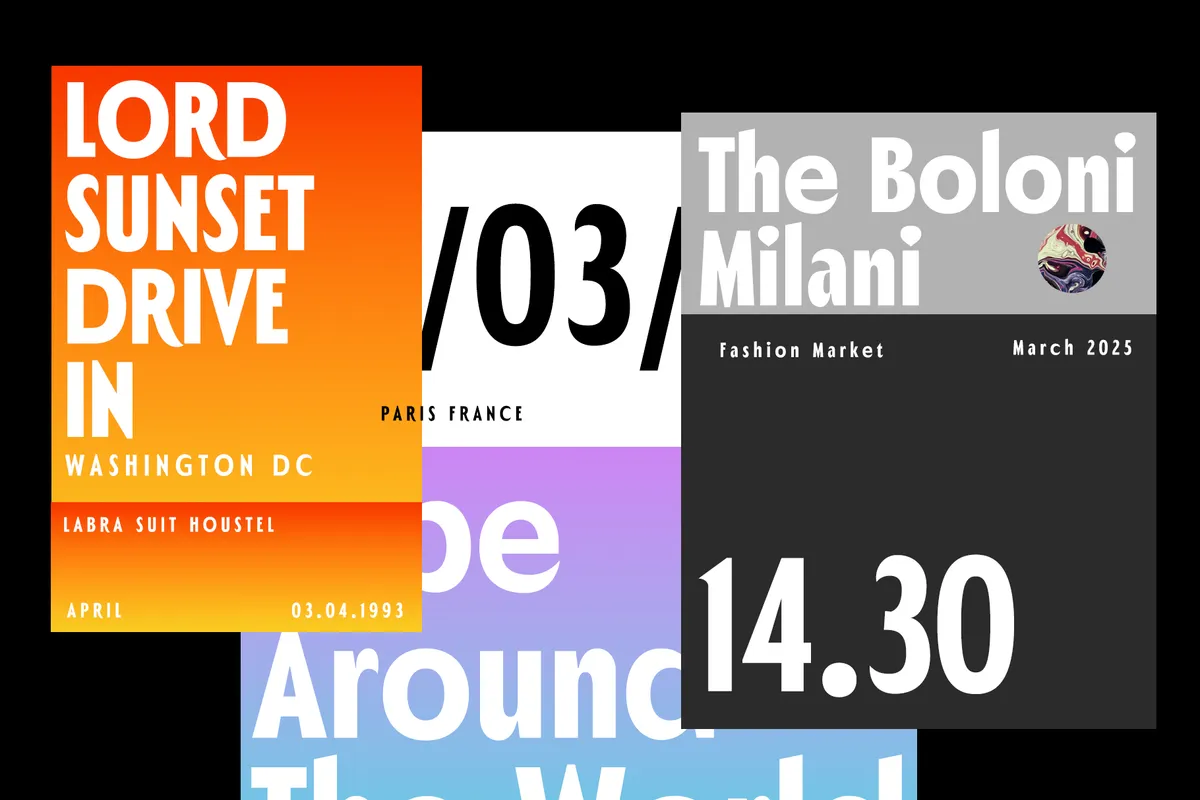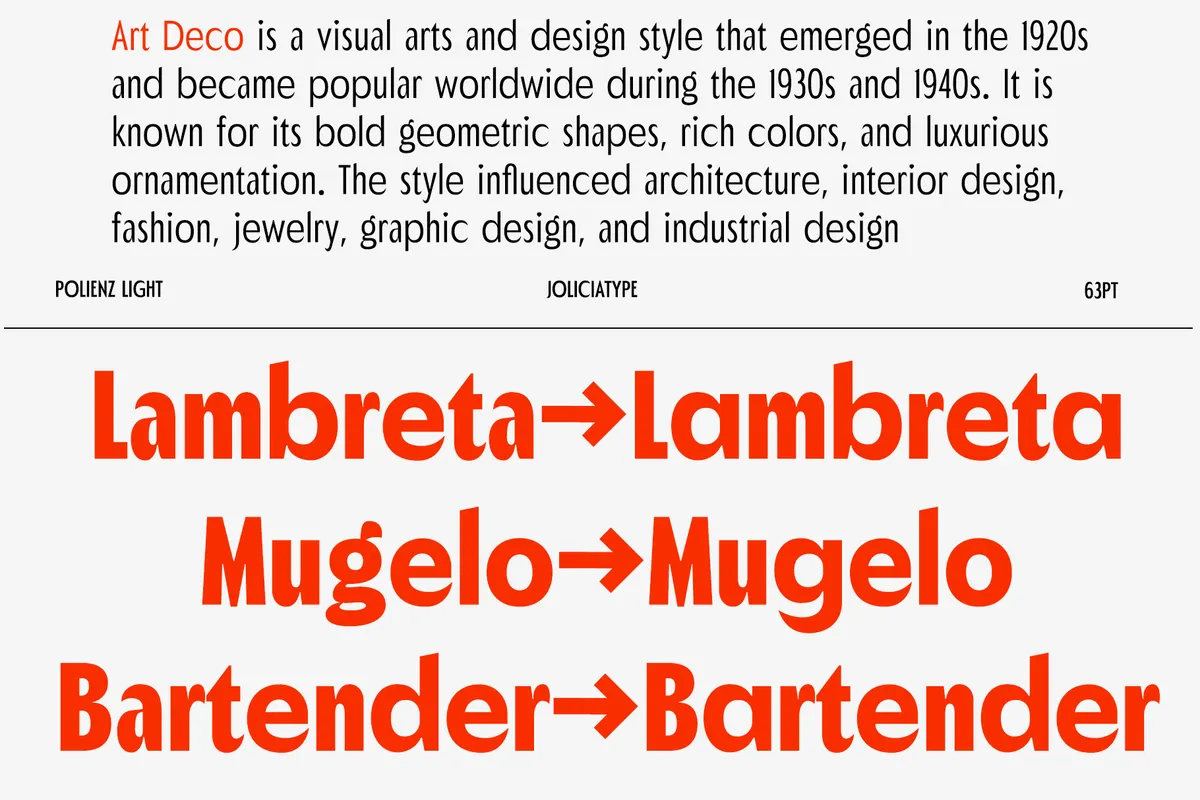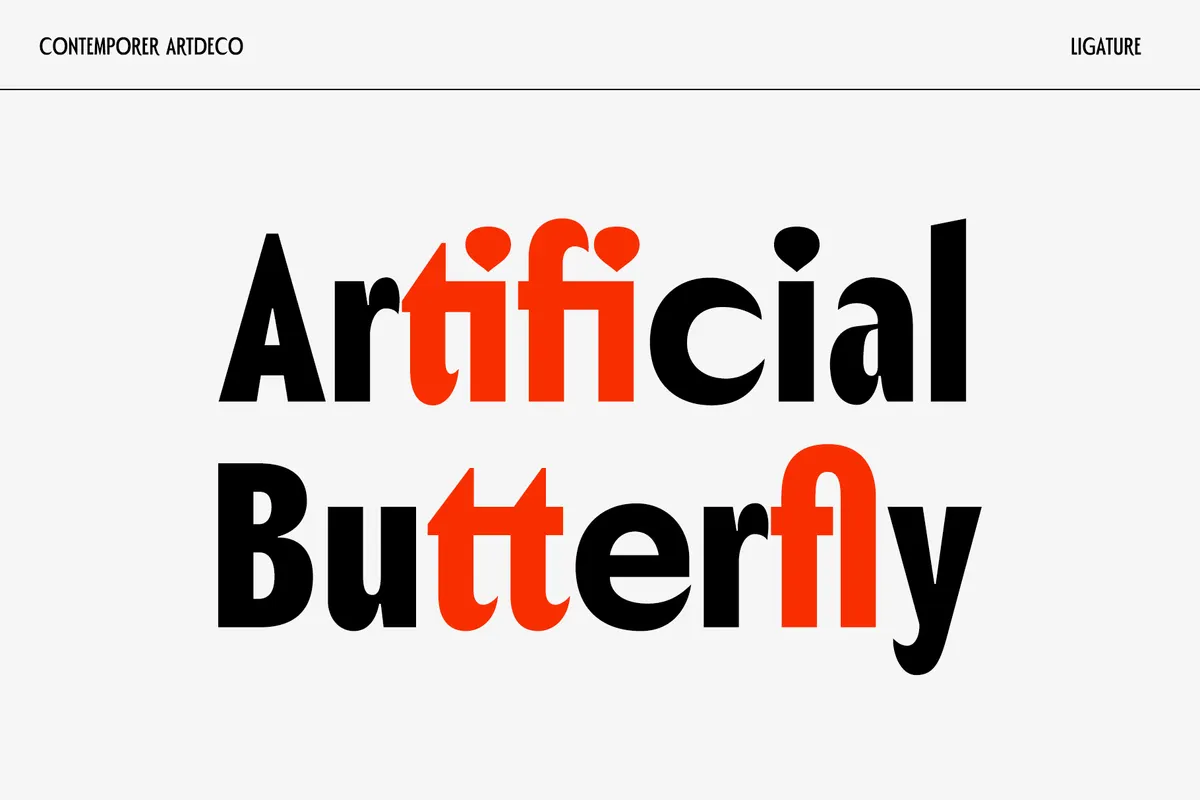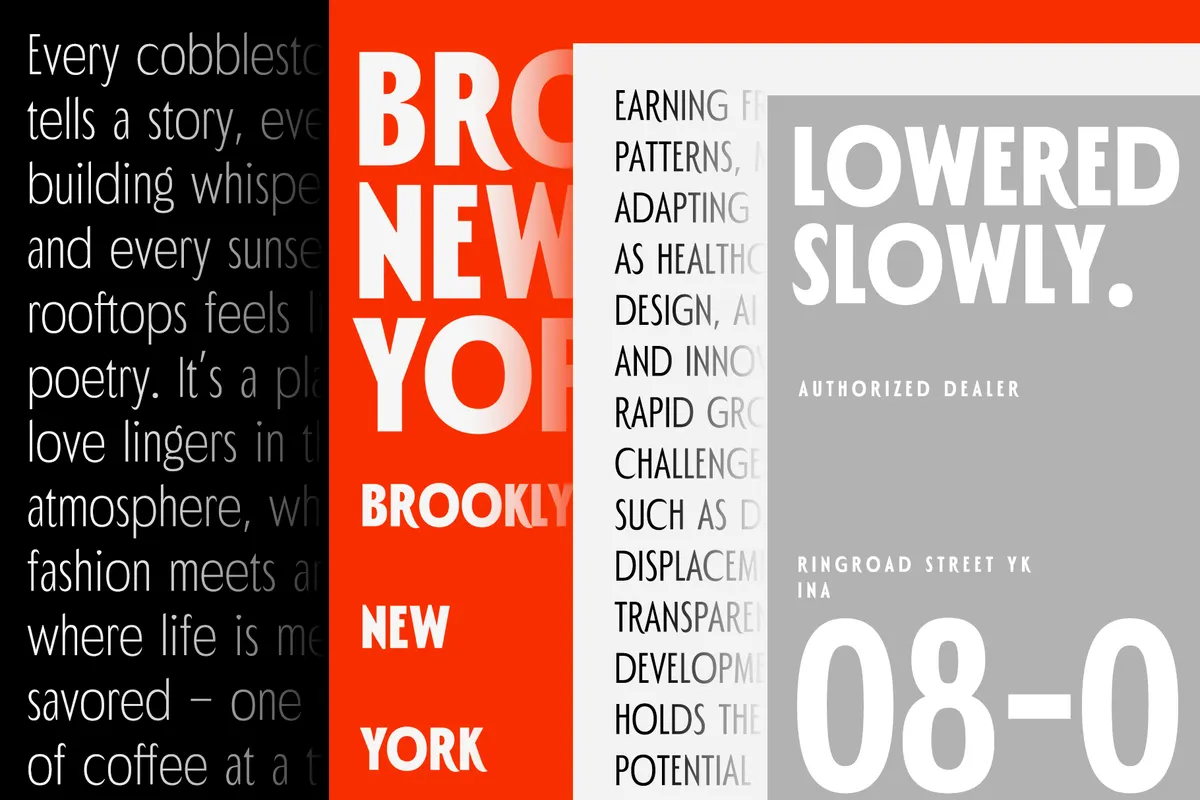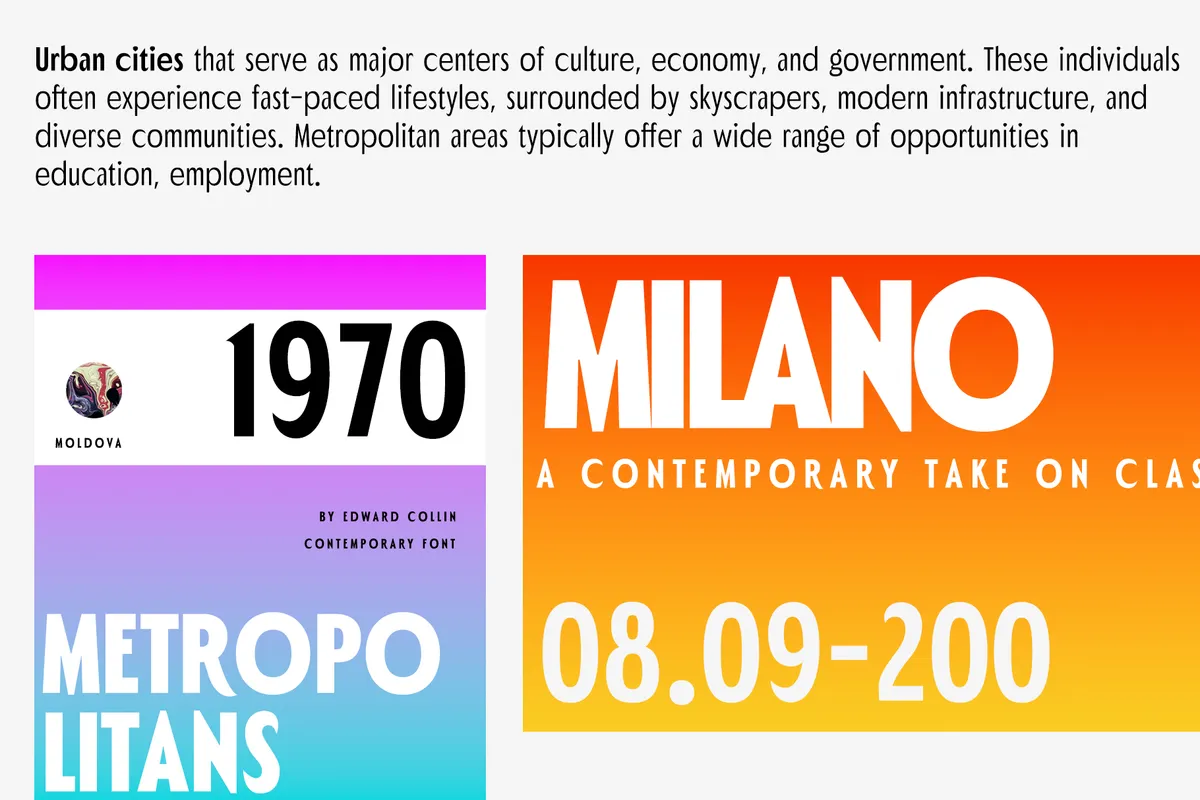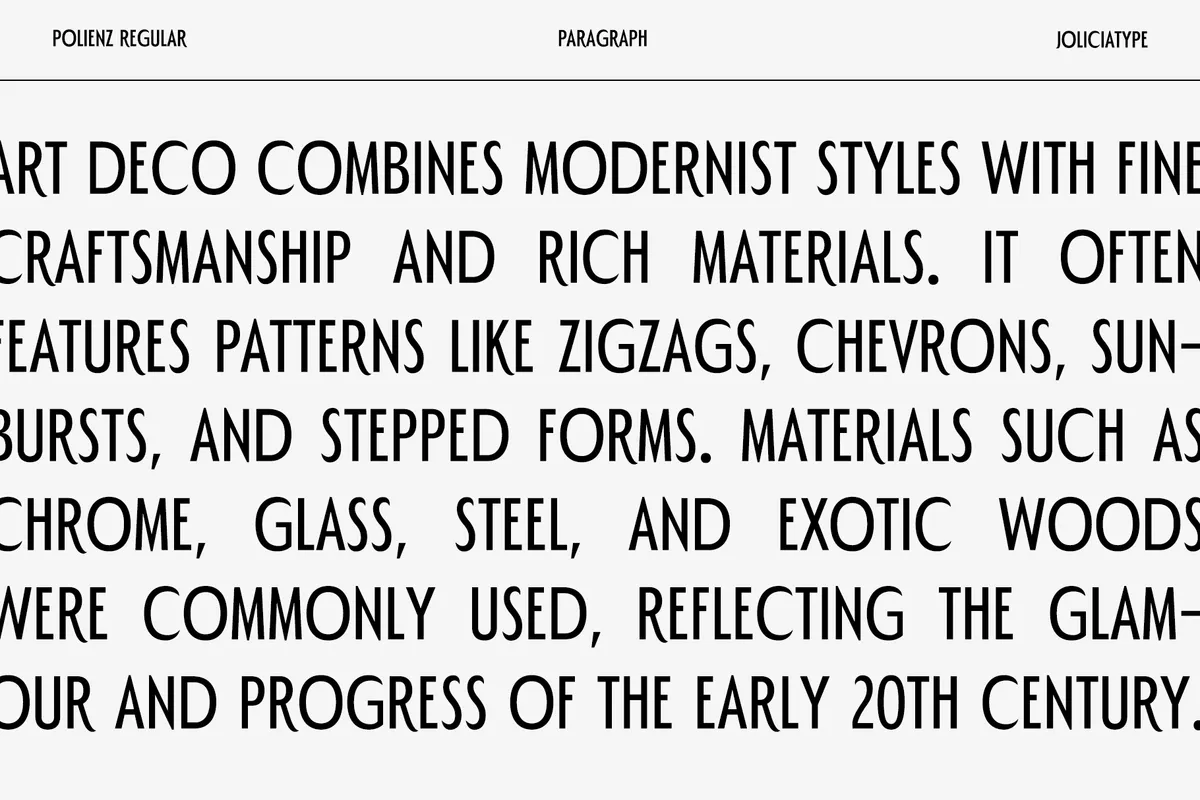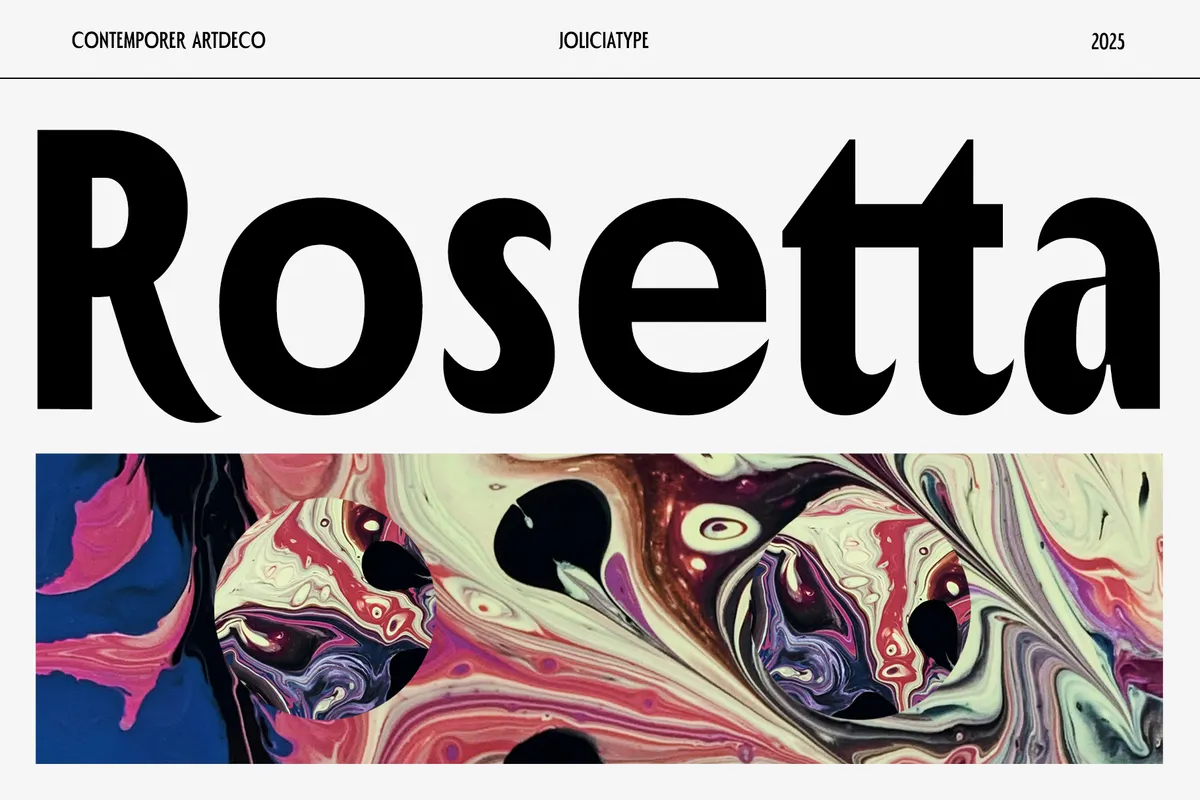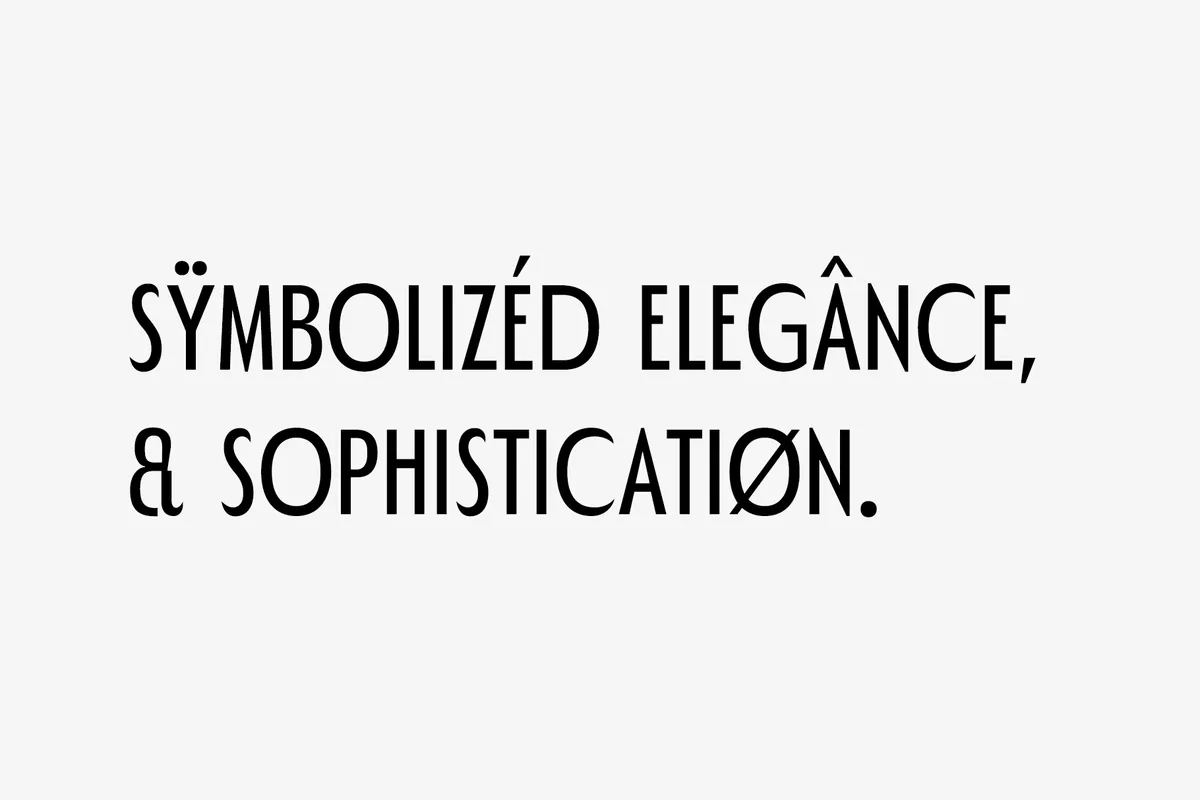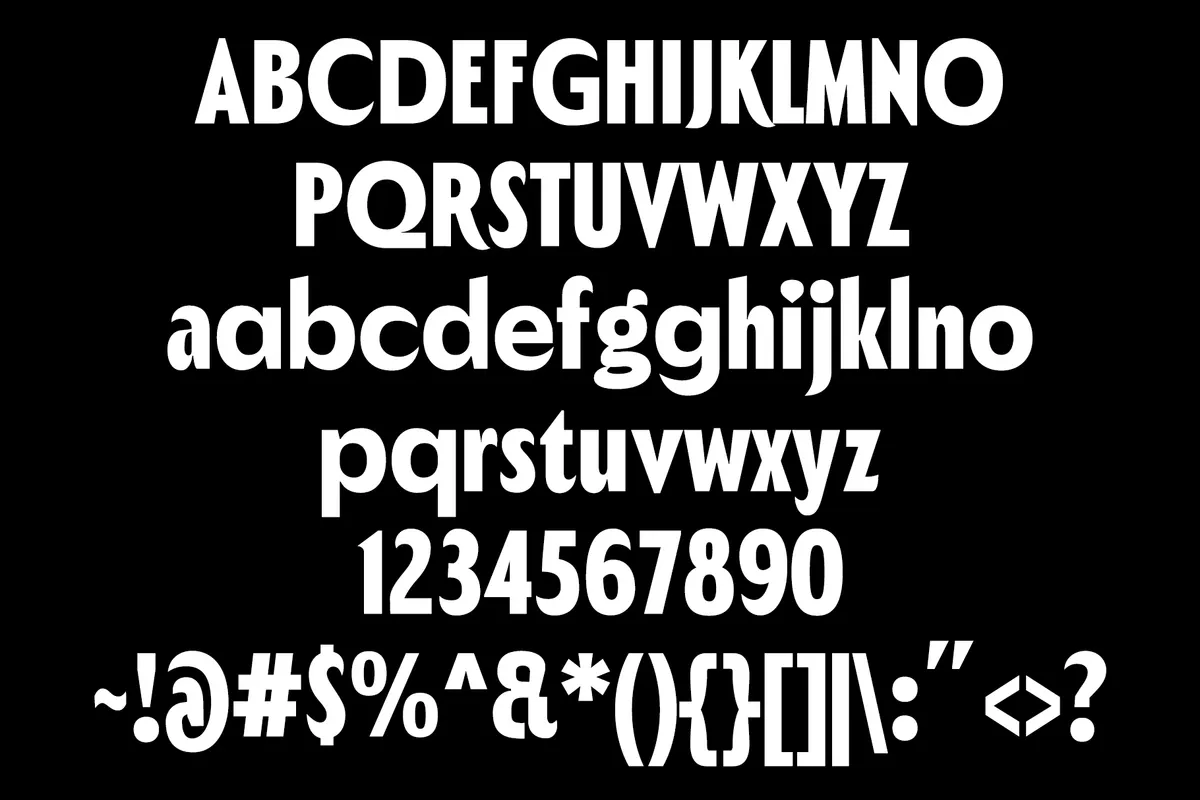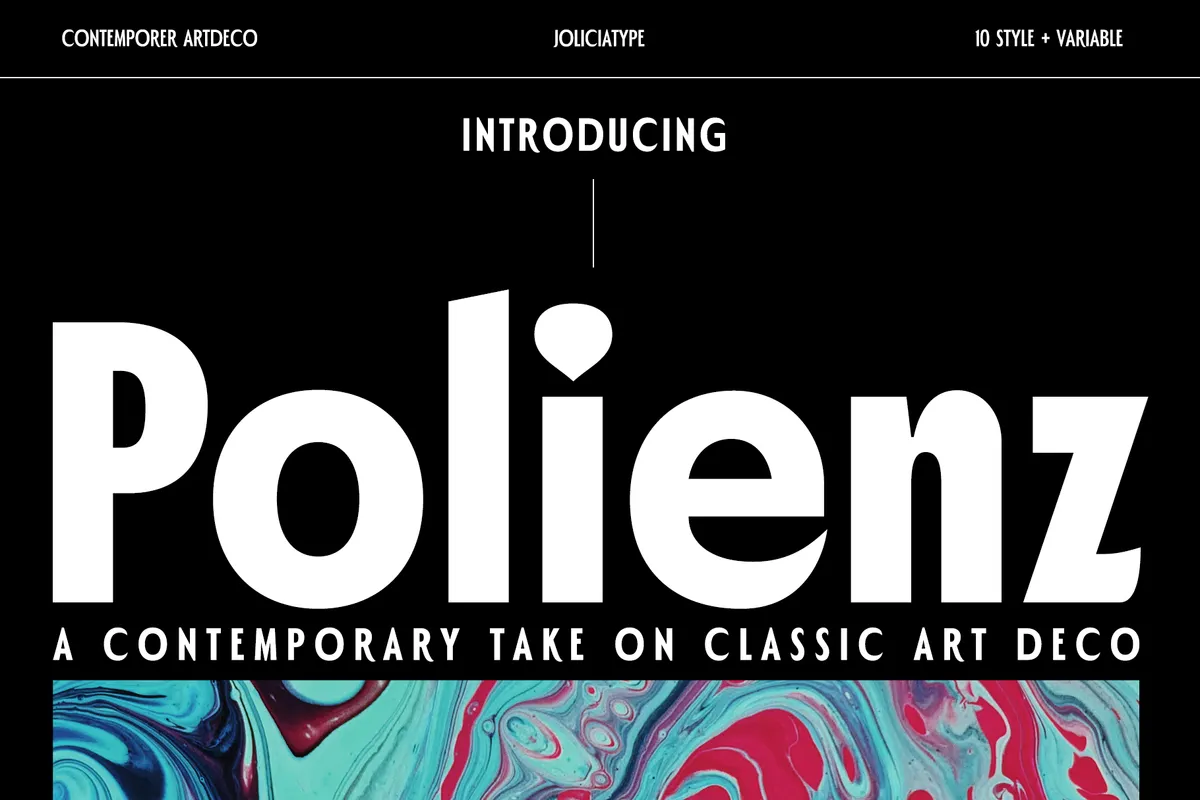
Polienz - Art Deco Sans Serif Family
Polienz is an art deco sans serif font drawn narrow and tall, with stems that taper slightly toward the joints and apexes that come to a point. Ten weights run from Hairline to Black, and the Hairline holds its shape at poster size where most thin sans collapse.
Alternates for a and g, twelve ligatures, and a full set of fractions, superiors and inferiors give the family a second register for small print. Use it for hotel and restaurant identities, theatre programmes, spirits labels, fashion campaign titles, architecture monographs, event invitations, and magazine mastheads.
- 10 styles: Hairline, Thin, ExtraLight, Light, Regular, Medium, SemiBold, Bold, ExtraBold, Black;
- variable file with a weight axis and 10 named instances;
- uppercase & lowercase;
- numerals, punctuation & symbols;
- ligatures, alternates for a and g, fractions, ordinals, superiors and inferiors;
- historical long s and localized forms for Romanian and Turkish;
- Latin Extended-A, covering Central and Eastern European languages;
- 476 glyphs per style.